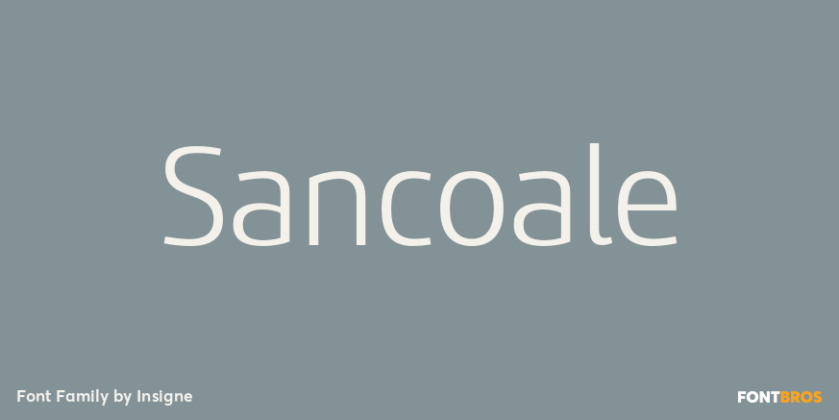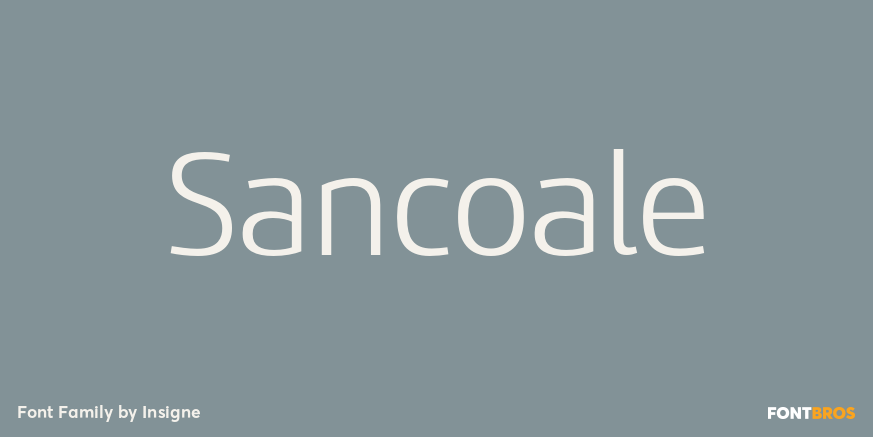
About Sancoale
Sancoale is a new sans serif that is simple and geometric. It is a contemporary design that is distinctive and unique, but not too far outside the box. This makes for a typeface family that is very useful for many applications. The design is simplified…